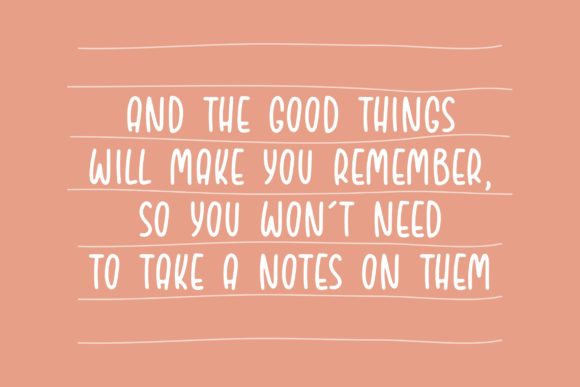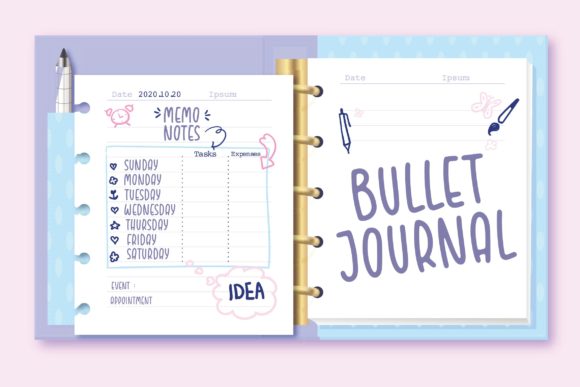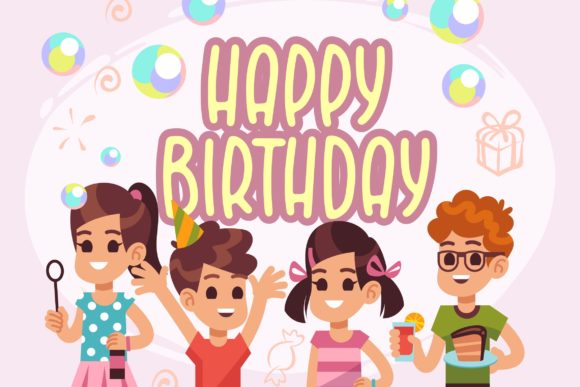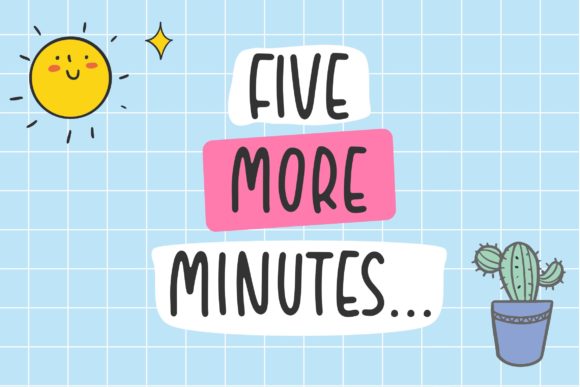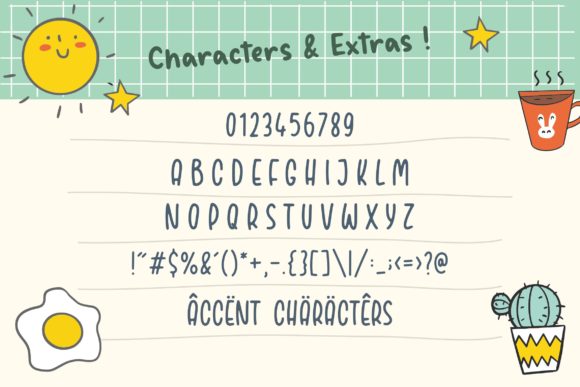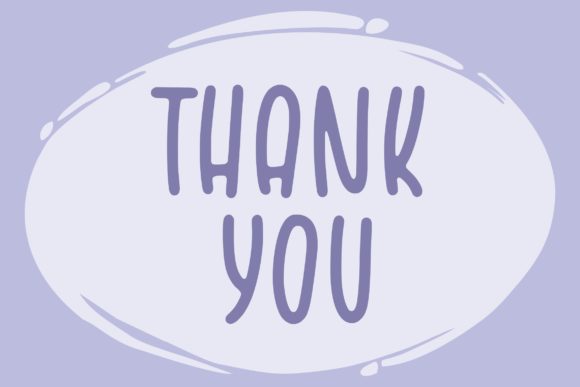
Bodynote Font: Adding a Playful Touch to Your Designs
Are you looking for a font that can add a fun and playful touch to your designs, especially those targeting children? Look no further than Bodynote Font! This delightful display font is perfect for creating engaging and vibrant designs that kids will love. In this article, we’ll explore the features and benefits of Bodynote Font, and how you can use it to take your designs to the next level.
What is Bodynote Font?
Bodynote Font is a modern display font designed to bring a sense of playfulness and fun to your designs. Its unique and quirky style makes it an excellent choice for children’s themed designs, such as posters, flyers, and brochures. The font’s bold and rounded edges give it a friendly and approachable feel, making it perfect for designs that require a lighthearted touch.
Key Features of Bodynote Font
- Fun and Playful: Bodynote Font is designed to be fun and engaging, making it perfect for children’s designs.
- Display Font: This font is ideal for headlines, titles, and short paragraphs, making it perfect for display purposes.
- Quirky Style: The font’s unique style sets it apart from other fonts, making it an excellent choice for designs that require a bit of personality.
- Bold and Rounded Edges: The font’s bold and rounded edges give it a friendly and approachable feel.
Benefits of Using Bodynote Font
So, why should you choose Bodynote Font for your designs? Here are just a few benefits of using this delightful font:
- Instant Attention: The playful and fun style of Bodynote Font grabs attention instantly, making it perfect for designs that require a bit of flair.
- Perfect for Children: The font’s friendly and approachable feel makes it an excellent choice for children’s designs, such as posters, flyers, and brochures.
- Versatile: Bodynote Font can be used for a variety of designs, from digital to print, making it a versatile addition to your font library.
- Easily Readable: Despite its playful style, Bodynote Font is easily readable, making it perfect for designs that require a bit of personality without sacrificing legibility.
How to Use Bodynote Font in Your Designs
Using Bodynote Font in your designs is easy! Here are a few tips to get you started:
- Pair with Bright Colors: Bodynote Font looks amazing when paired with bright and bold colors, making it perfect for children’s designs.
- Use for Headlines: The font’s bold style makes it perfect for headlines and titles, adding a bit of flair to your designs.
- Experiment with Sizes: Bodynote Font looks great in a variety of sizes, from small to large, making it perfect for a range of designs.
- Add a Personal Touch: The font’s quirky style makes it an excellent choice for adding a personal touch to your designs.
If you’re a designer or crafter looking to add a bit of personality to your designs, here are a few tips for using Bodynote Font:
- Keep it Simple: Bodynote Font is perfect for simple designs that require a bit of flair.
- Experiment with Textures: Adding textures to your designs can enhance the overall look and feel of Bodynote Font.
- Use for Branding: The font’s unique style makes it an excellent choice for branding, especially for children’s products or services.
- Have Fun: Most importantly, have fun with Bodynote Font! Its playful style is perfect for designers and crafters who want to add a bit of personality to their designs.
Bodynote Font is a fun and playful display font that’s perfect for children’s themed designs. Its unique and quirky style makes it an excellent choice for designers and crafters looking to add a bit of personality to their designs. With its bold and rounded edges, Bodynote Font is sure to grab attention and add a lighthearted touch to your designs. So why not give Bodynote Font a try and see how it can elevate your designs to the next level?